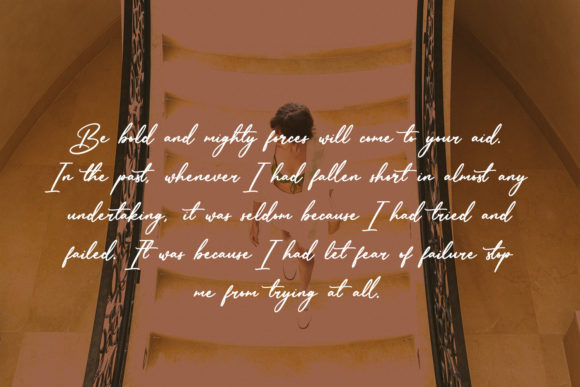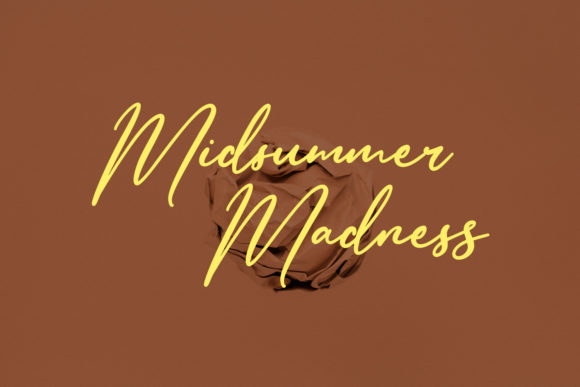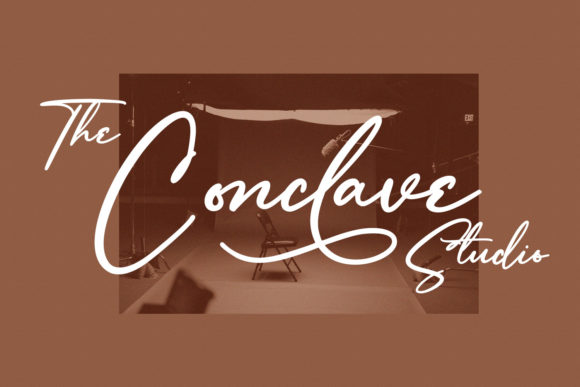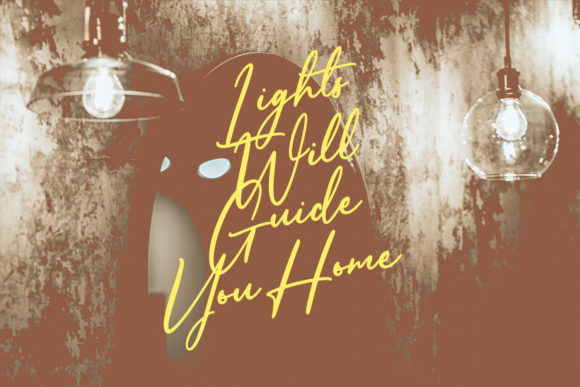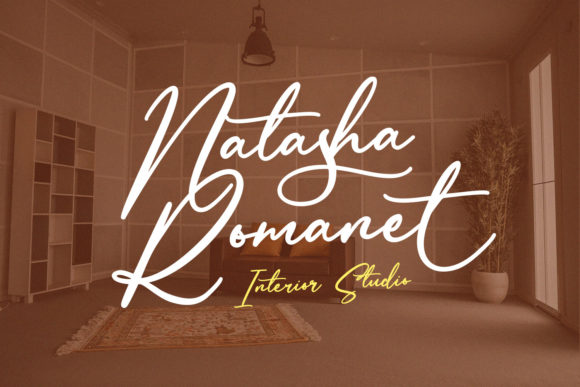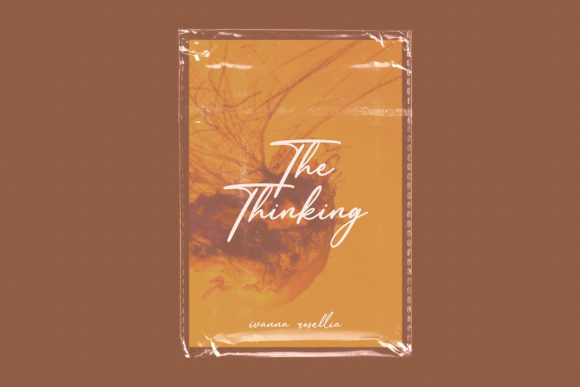
Introduction to Reliances Script Font
Remember that moment when you stumbled upon the perfect design resource that changed the entire direction of your creative project? For many designers, this moment is what sets their work apart and makes it truly special. For me, it was when I discovered the stunning Reliances Script Font.
This elegant handwritten font has been a game-changer in my design journey, and I’m excited to share its beauty with you. With its well-balanced letters and distinct style, Reliances Script Font is a masterpiece that can elevate any design. Whether you’re working on a personal project or a commercial venture, this high-quality font is sure to impress.
What makes Reliances Script Font so valuable is its versatility. You can use it to create stunning graphics with a transparent background or as a header font for a blog post. The possibilities are endless, and I’m sure you’ll fall in love with its style as much as I have.
Key Features of Reliances Script Font
- Reliances Script Font is available in a single weight, making it easy to use and integrate into designs.
Honest Review: Reliances Script Font
I recently had the chance to work with the Reliances Script Font on a creative project and I’m excited to share my honest review. This font has been a game-changer for me, and I think it’s a great resource for designers looking for a high-quality script font.
- ✨ Beautiful, elegant script design that adds a touch of sophistication to any project.
One thing I appreciate about Reliances Script Font is its versatility. It can be used for a variety of creative projects, from wedding invitations to branding materials.
- ⚠️ Limited character set, which may require additional font pairing for complex projects.
- ⚠️ Not ideal for projects that require a lot of text manipulation, due to its script design.
Tips for Getting the Most Out of Reliances Script Font
Use Reliances Script Font with a transparent background for a clean and modern look. Experiment with different font sizes and styles to create visual interest in your design. You can also pair the font with other high-quality design resources to create a cohesive look.
Reliances Script Font is perfect for creative projects such as branding, invitations, and social media graphics. It’s also great for adding a touch of elegance to presentations and reports. With its high-quality design and free download option, Reliances Script Font is a valuable resource for any design project.
Alternatives to Reliances Script Font
Pacifico is a high-quality script font ideal for creative projects, such as branding, logos, and invitations. It features a smooth, elegant design with a transparent background, making it perfect for overlays and backgrounds. Pacifico is a popular design resource, offering a modern and sophisticated look that rivals the Reliances Script Font.
When to use: Pacifico is suitable for projects that require a touch of elegance and sophistication, such as wedding invitations, luxury branding, and high-end marketing materials.
Comparison: Pacifico has a more refined and polished look compared to the Reliances Script Font, making it a great choice for designers who want to add a touch of sophistication to their creative project.